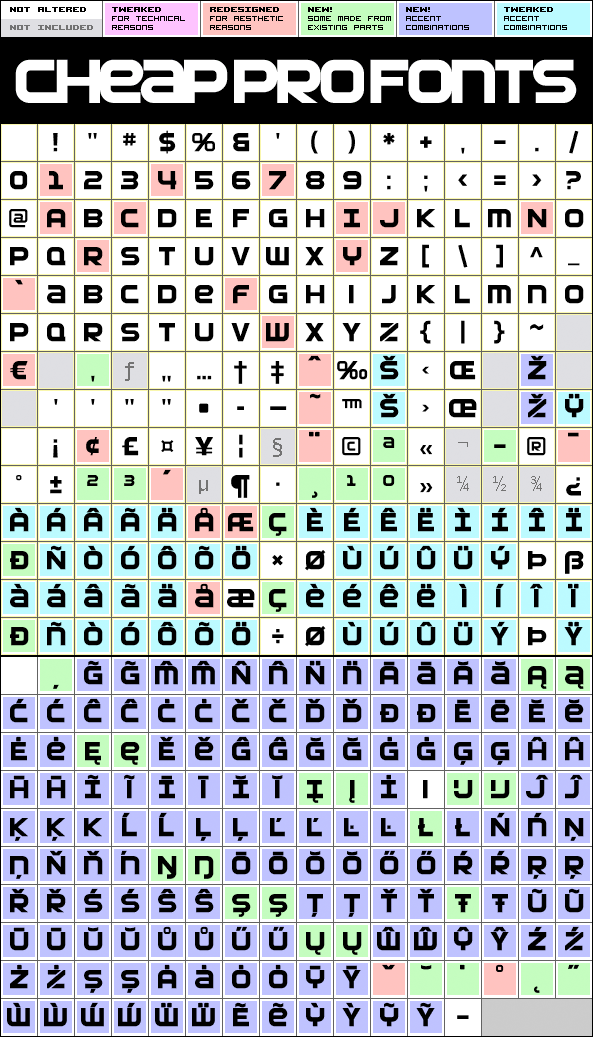
The original font had only one case of letters - duplicated for upper and lower case positions (except the "stencil" z included to be able to set the Mazda® logo ;) But I took the opportunity to create some alternates - to make it even more versatile. As the letters are very solid, I also remade the diacritics to match this rugged look. All the letters of this font are touching, but that doesn't mean it was easy to space (it still needed some kerning pairs to allow the more open letters to touch, as well ;) Derek Vogelpohl calls it: "A fast and sporty typeface with clean, sexy lines."
SF Automaton Pro is a professionally reworked font that contains an extended character set for setting text in 65 languages requiring more than the basic A-Z!